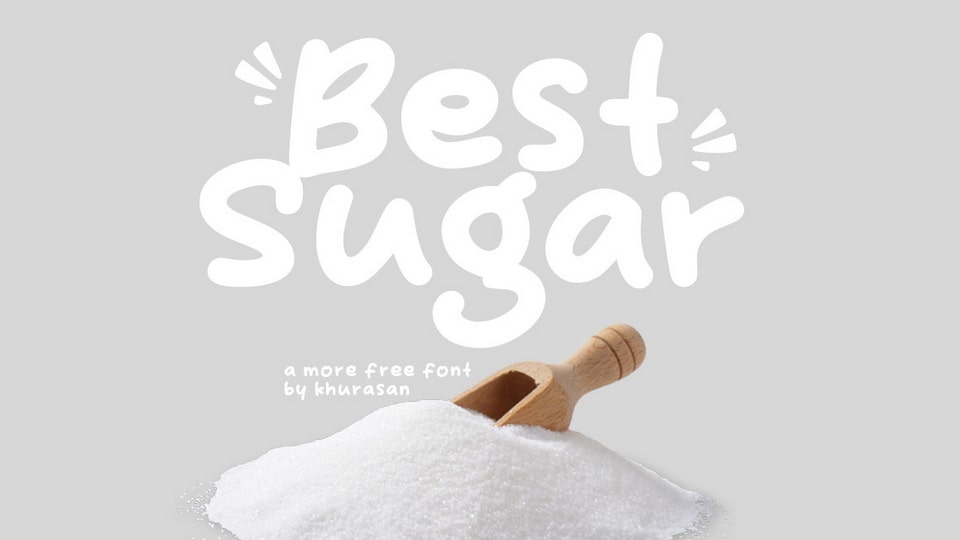
Download Best Sugar font, a playful and cute handwritten typeface. It is perfect for all your graphic design projects like posters, logos, magazines, book covers, banners and more and extraordinary designs.